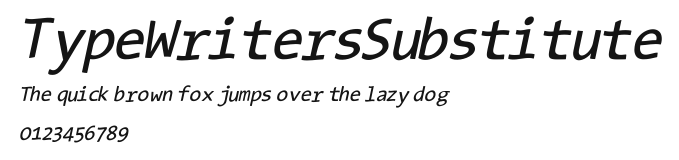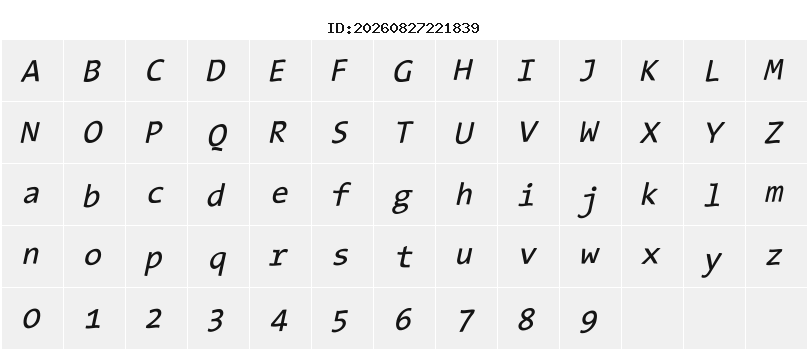
• Font Name: TypeWritersSubstitute
• Font Style: Medium Italic
• Font ID: TypeWritersSubstitute-Oblique
• Full Font Name: TypeWritersSubstitute-Oblique
• Version: 1.1 207-08-11
• PostScript Name: TypeWritersSubstitute-Oblique
• Character Count: 228
About TypeWritersSubstitute.ttf
TypeWritersSubstitute.ttf is a modern, elegant sans-serif font designed for ultimate readability and visual harmony. Perfect for branding, headlines, web design, and print materials.